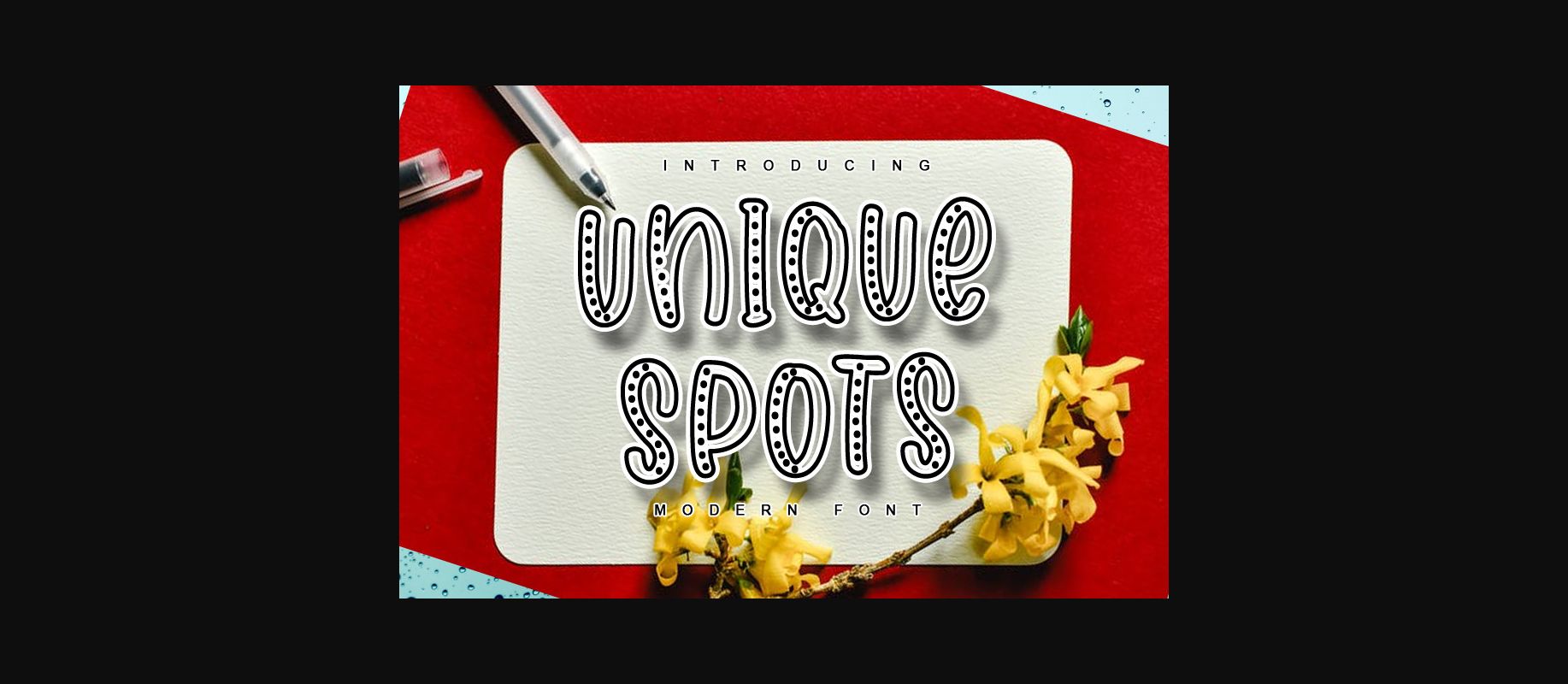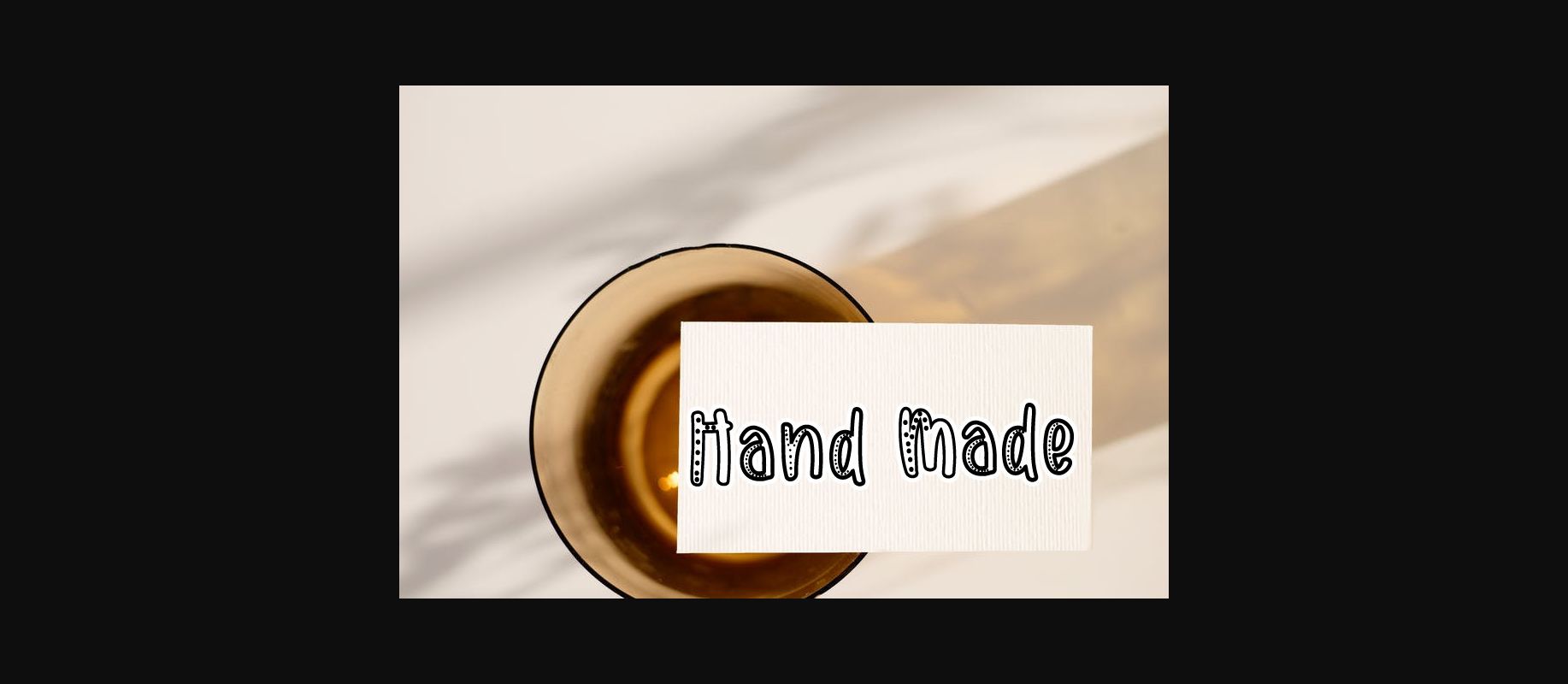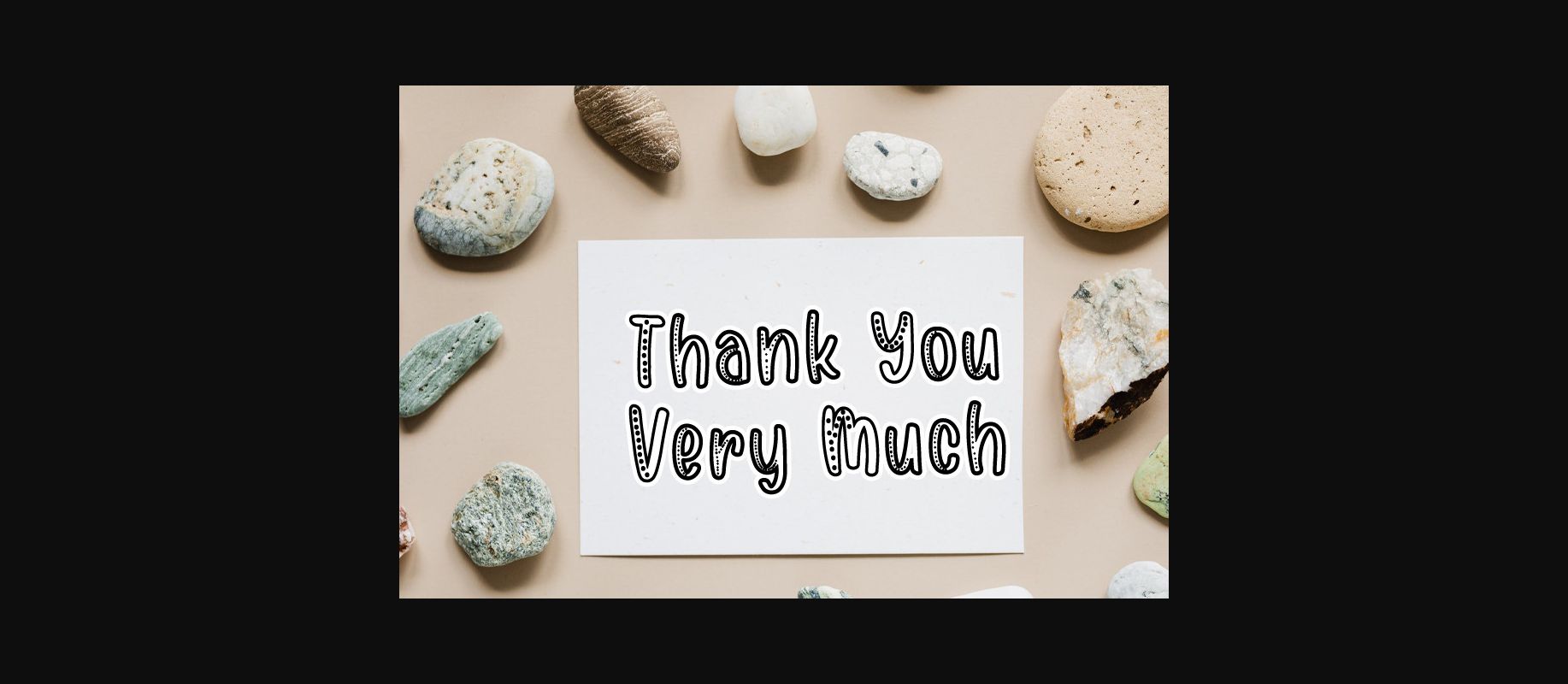
About Unique Spots Font
Unique spots si a fresh and beautiful decorative font. It is perfectly suitable for banners, cover logos, apparel designs, stationery, and other projects that need to stand out!